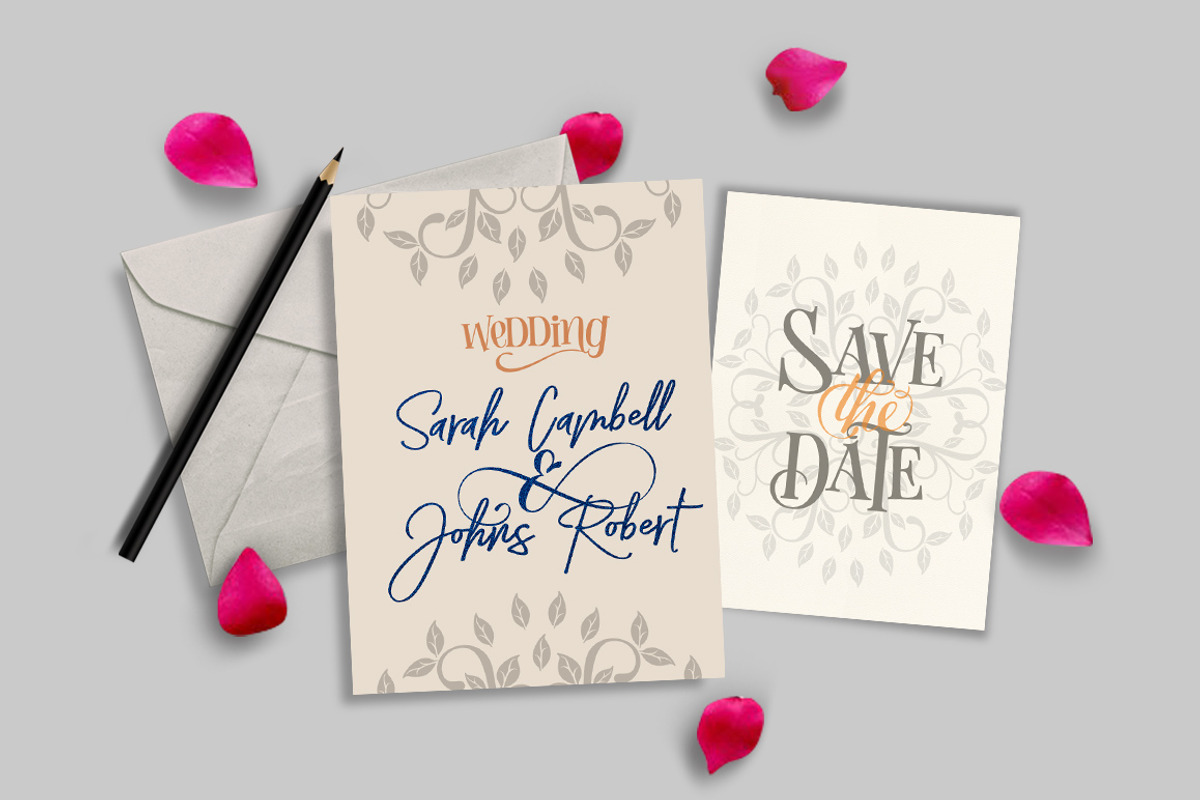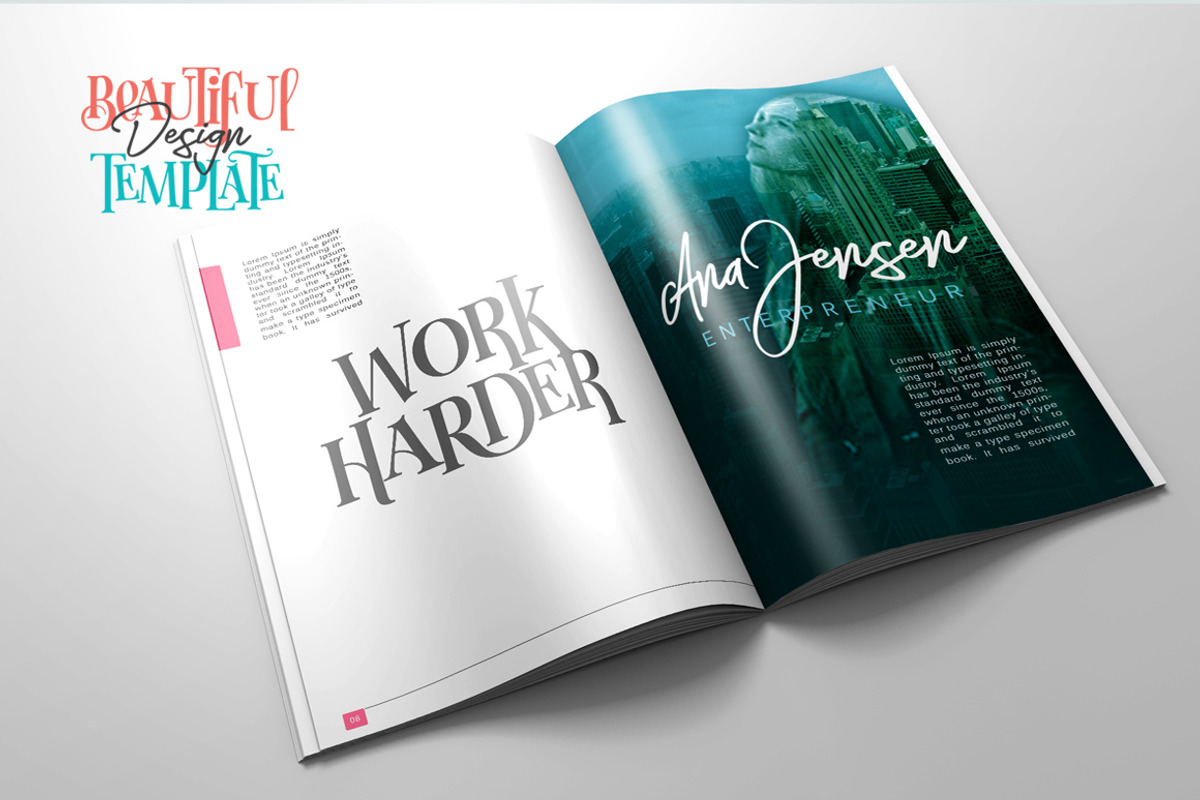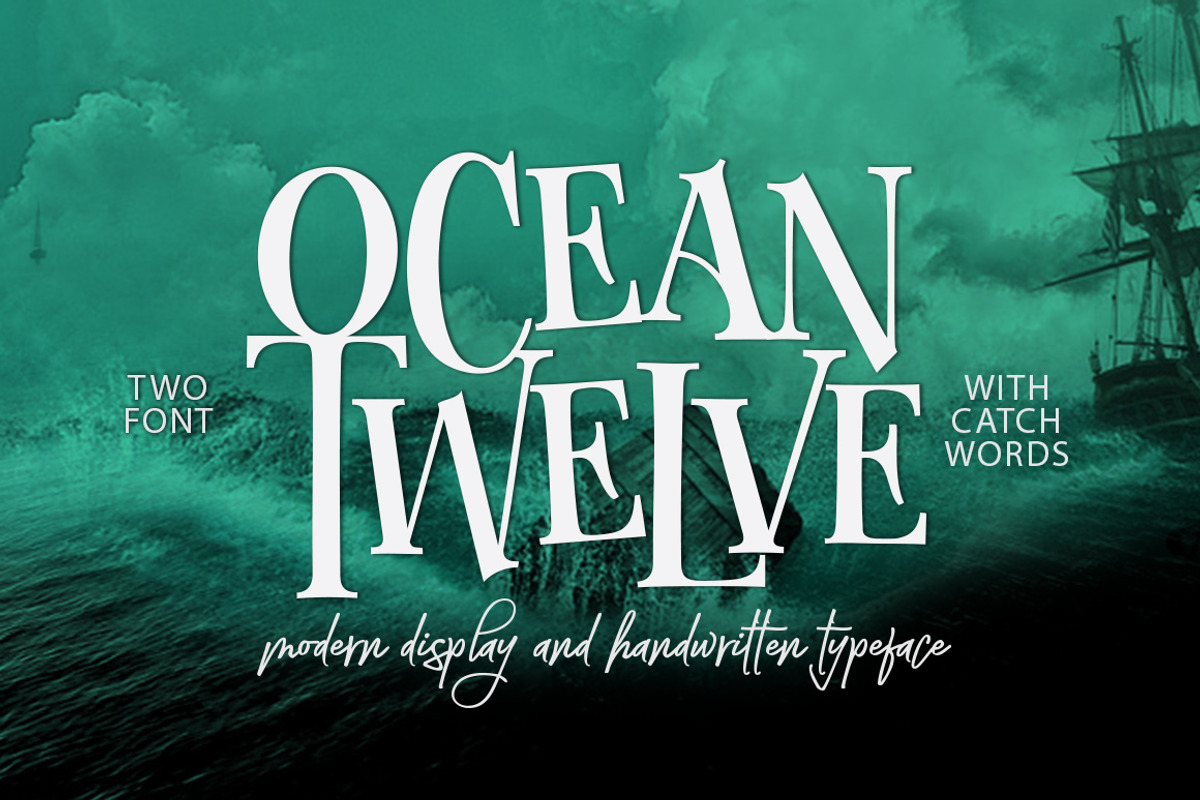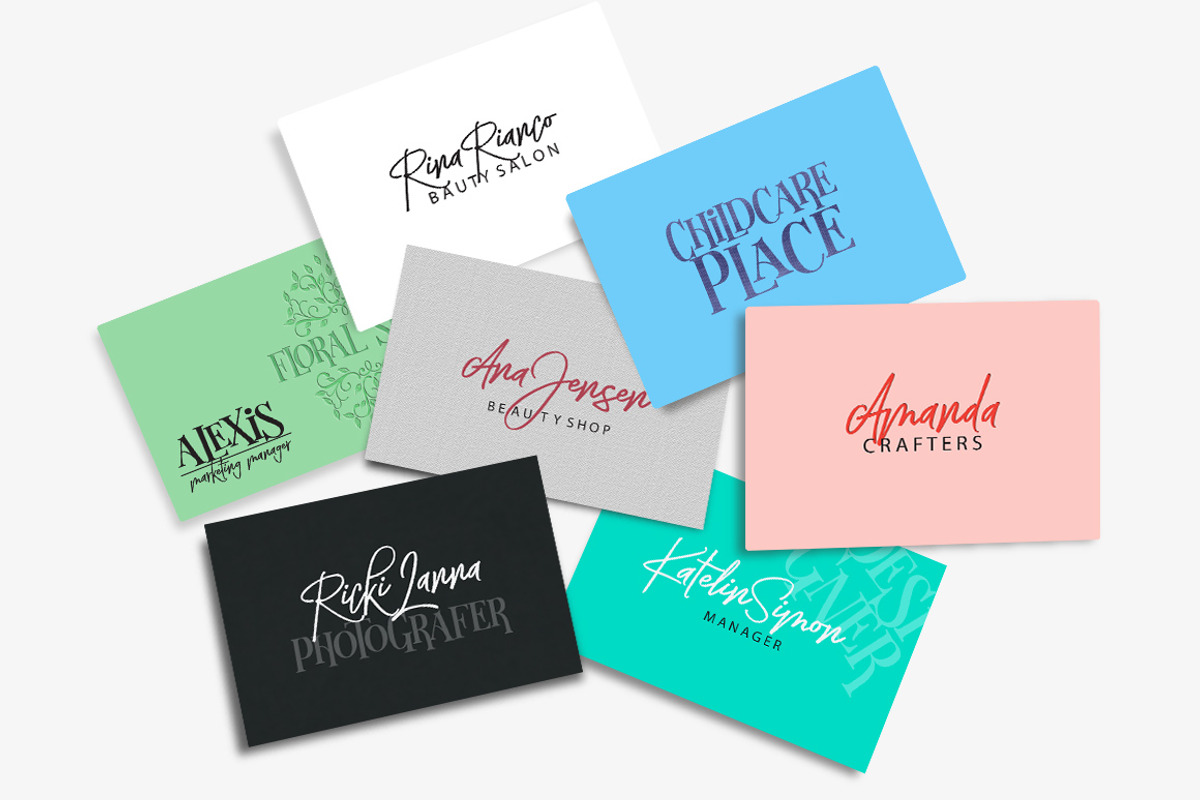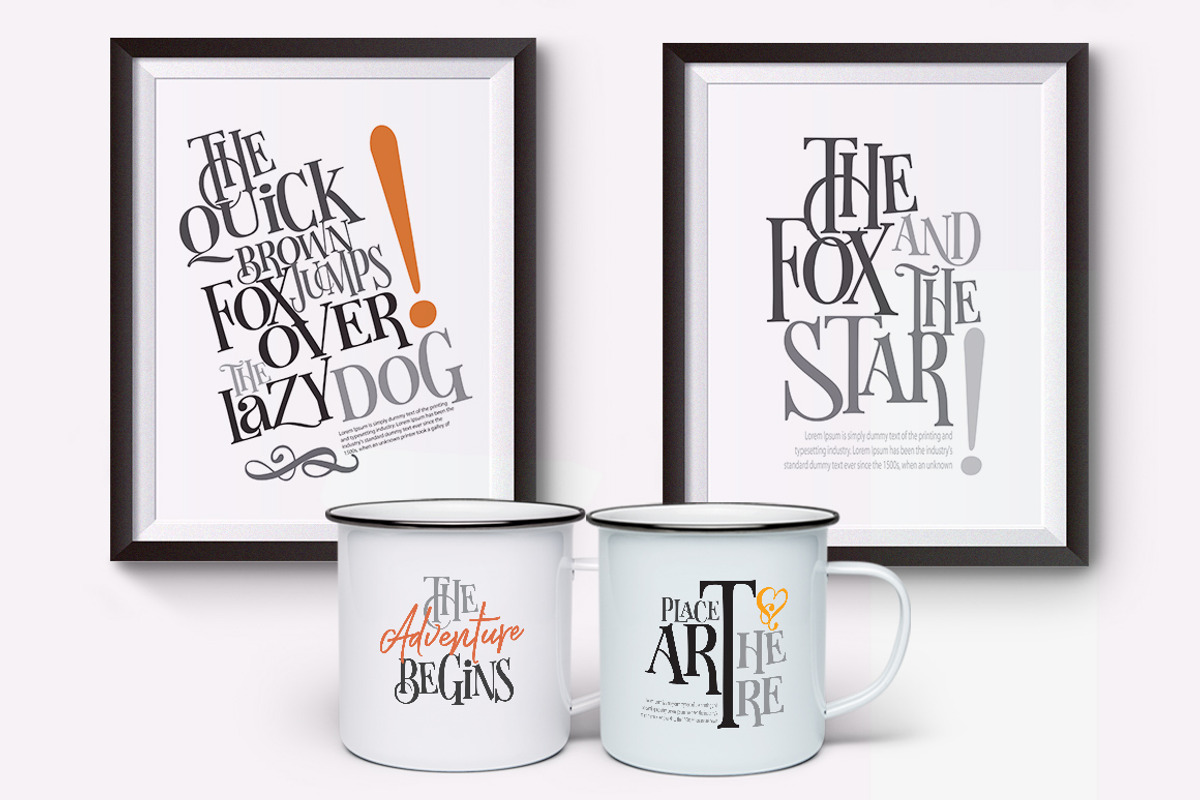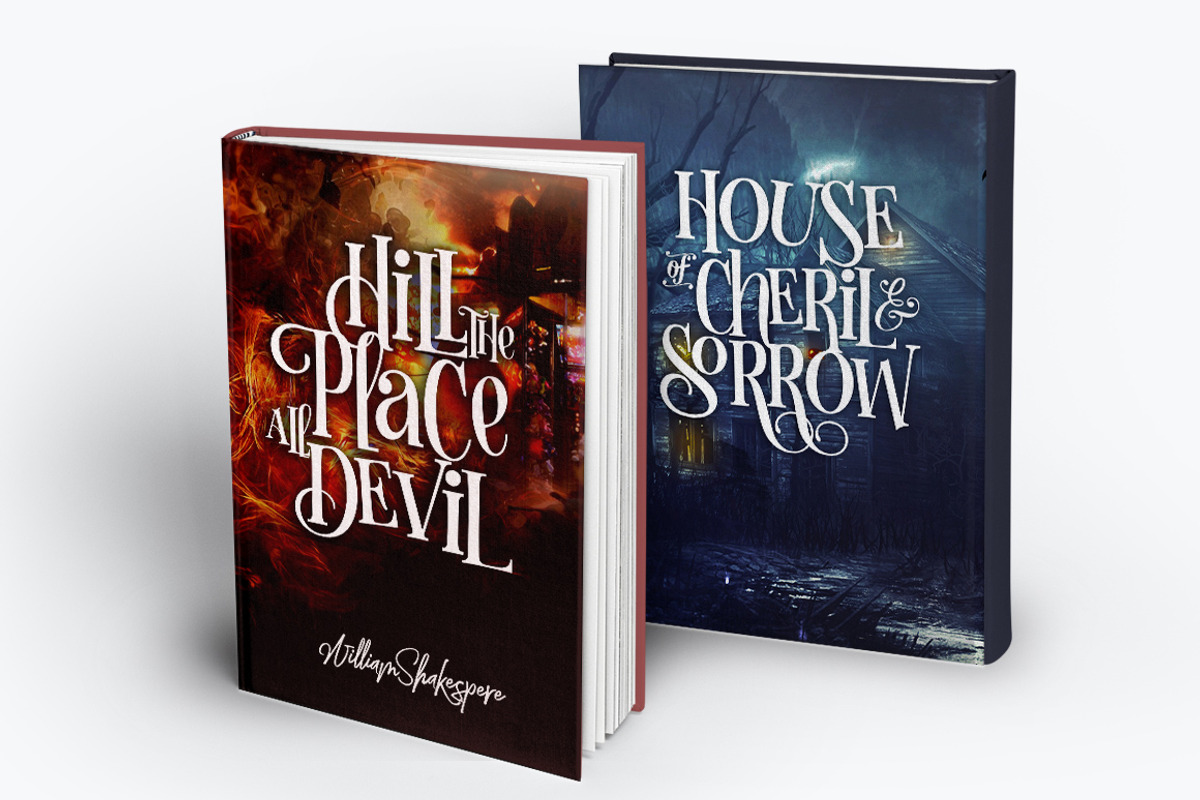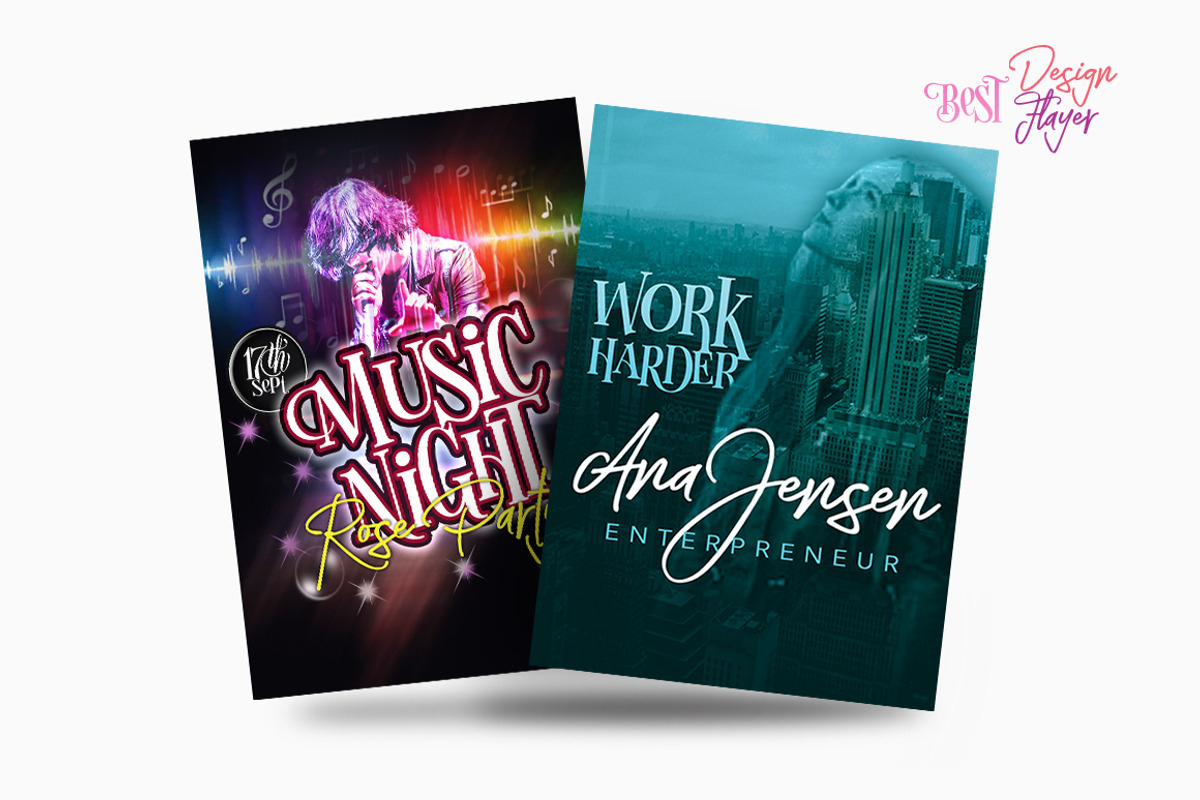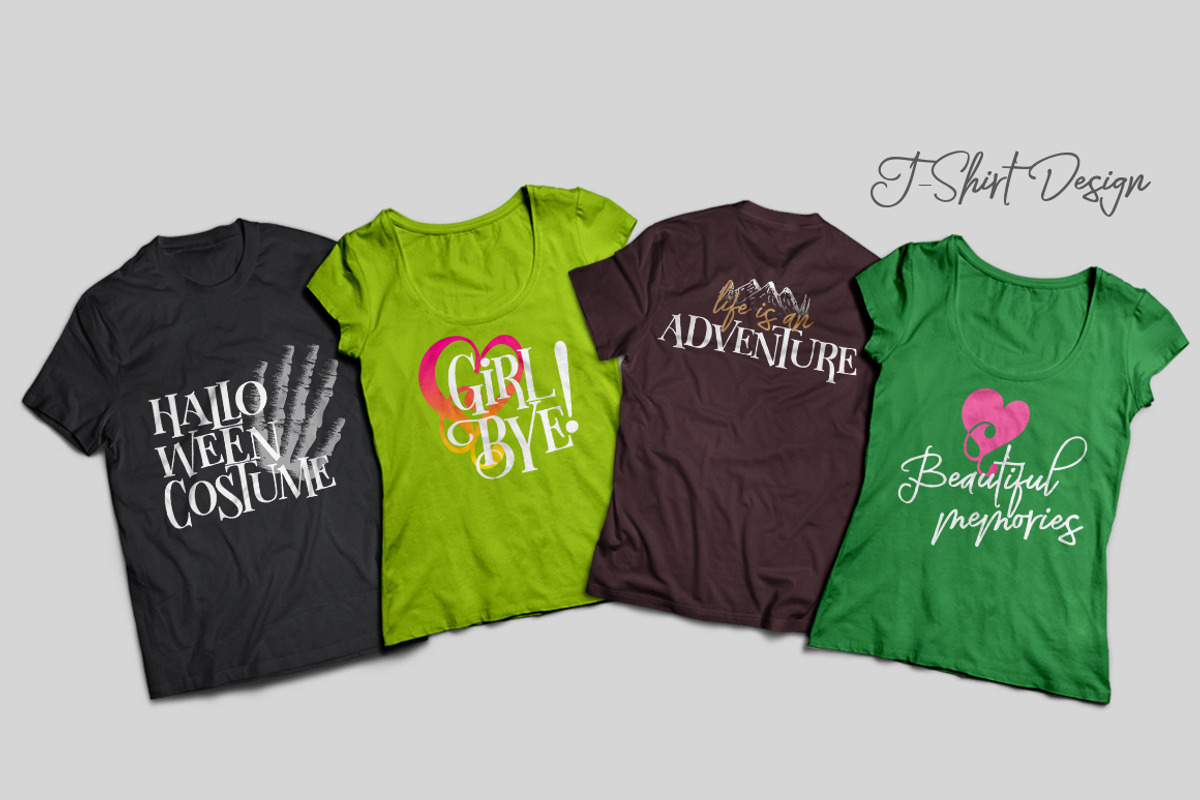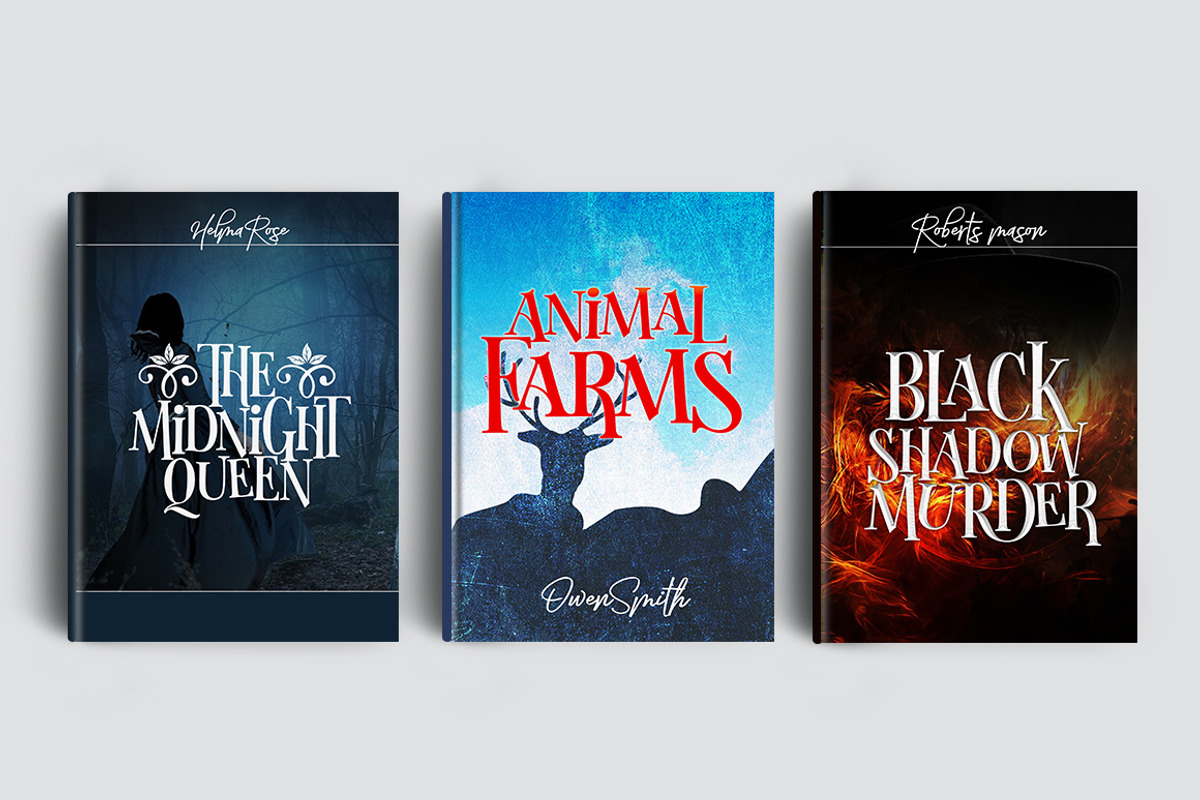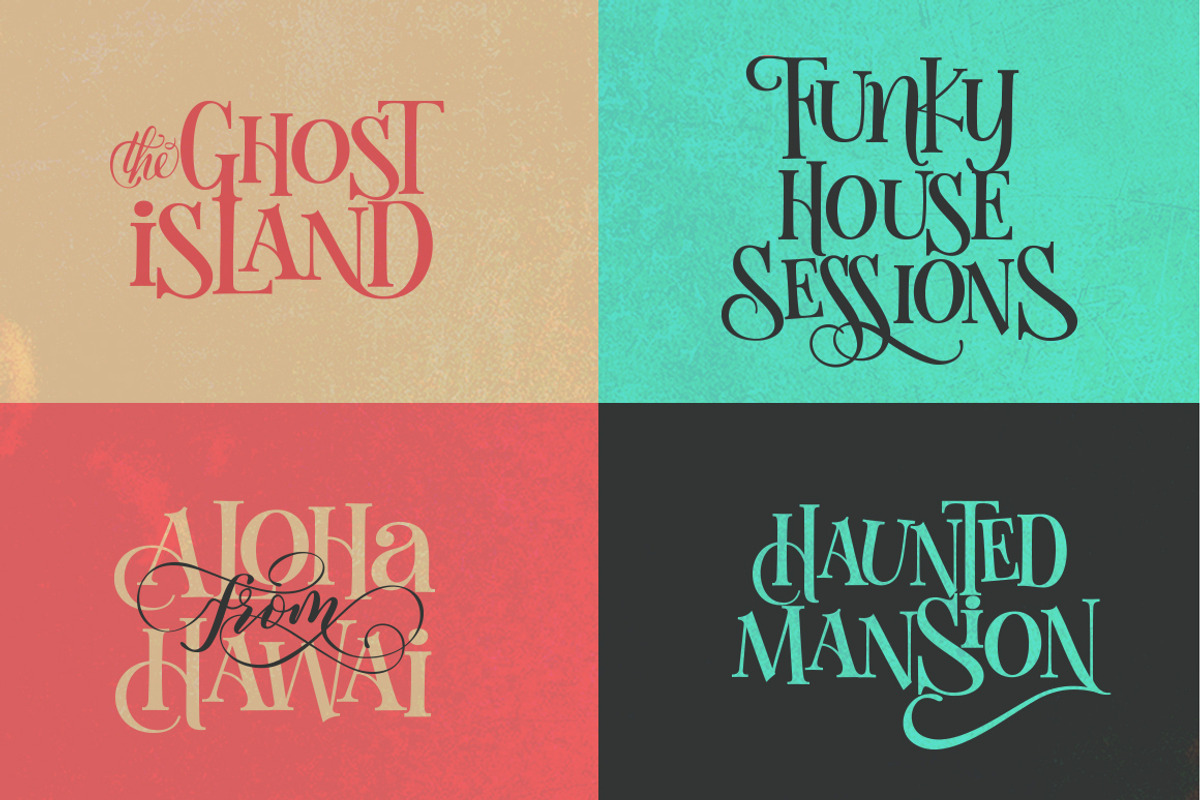
Ocean Twelve Font Duo
Introducing
OCEAN TWELVE FONT DUO (Ocean Twelve Display, Ocean Twelve Script, Ocean Twelve Catchwords)
Ocean Twelve & Ocean Twelve Script is a modern display and Handwritten font inspired by vintage typography that usually shown on poster, book and CD cover. The irregular height of the font clearly represents the feeling of hand-drawn and humanis. You can use it for your next handcrafted projects: poster, flyer, banner, illustration, cover, Flyer, Card Name, etc. you'll also get a bunch of extra bonus that can be found inside of Ocean Twelve Catch words, And you can combine together with the regular font to get more variation for your design.
Ocean Twelve Fonts pack allows you to create custom dynamic text. you can access by turning on; Stylistic Alternates, as well as ligatures in Photoshop, Adobe Illustrator, Adobe InDesign or through a panel of glyphs such as Adobe Illustrator, Photoshop CC, Let's switch from the reguler character into character alternative to get the text with the layout of your dreams. Ocean Twelve Fonts, punctuation, numbers, and multilingual.